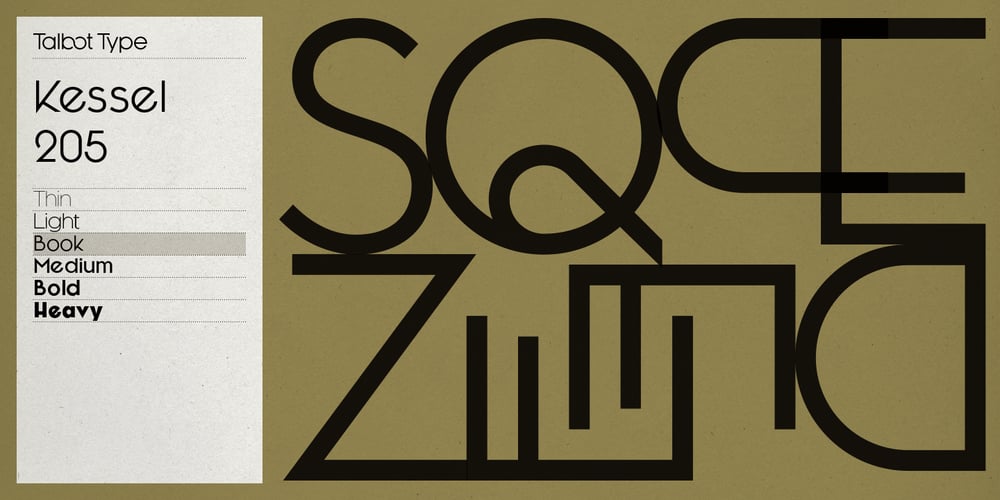
Kessel 205
Kessel 205 font
Kessel 205 Font Family was designed by Adrian Talbot and published by Talbot Type. Kessel 205 contains 12 styles and family package options. Kessel 205 is inspired by the classic, geometric sans-serifs such as Futura, but has shallower ascenders and descenders for a more compact look, and features an art deco influence with sharp points at the apex of many characters, lowered crossbars and an oblique crossbar on the lower case e. It’s a versatile, modern sans, highly legible as a text font and with a distinctive, elegant look as a display font at larger sizes. It includes old style non-aligning (lower case) numbers, both proportional and tabular as well as accented characters for Central European languages. The Kessel 205 family comprises of six weights and is closely related to Kessel 105.